Choosing the right tattoo script is tough—style, readability, and vibe need to click for names, quotes, and logos; this roundup narrows the field to proven winners that feel custom without guesswork. Each pick notes best uses, feature highlights, and machine readiness so you can install, tweak OpenType alternates, and cut or print cleanly in minutes in your favorite design apps and popular cutters.
1. Claimus Tattoo Script Font
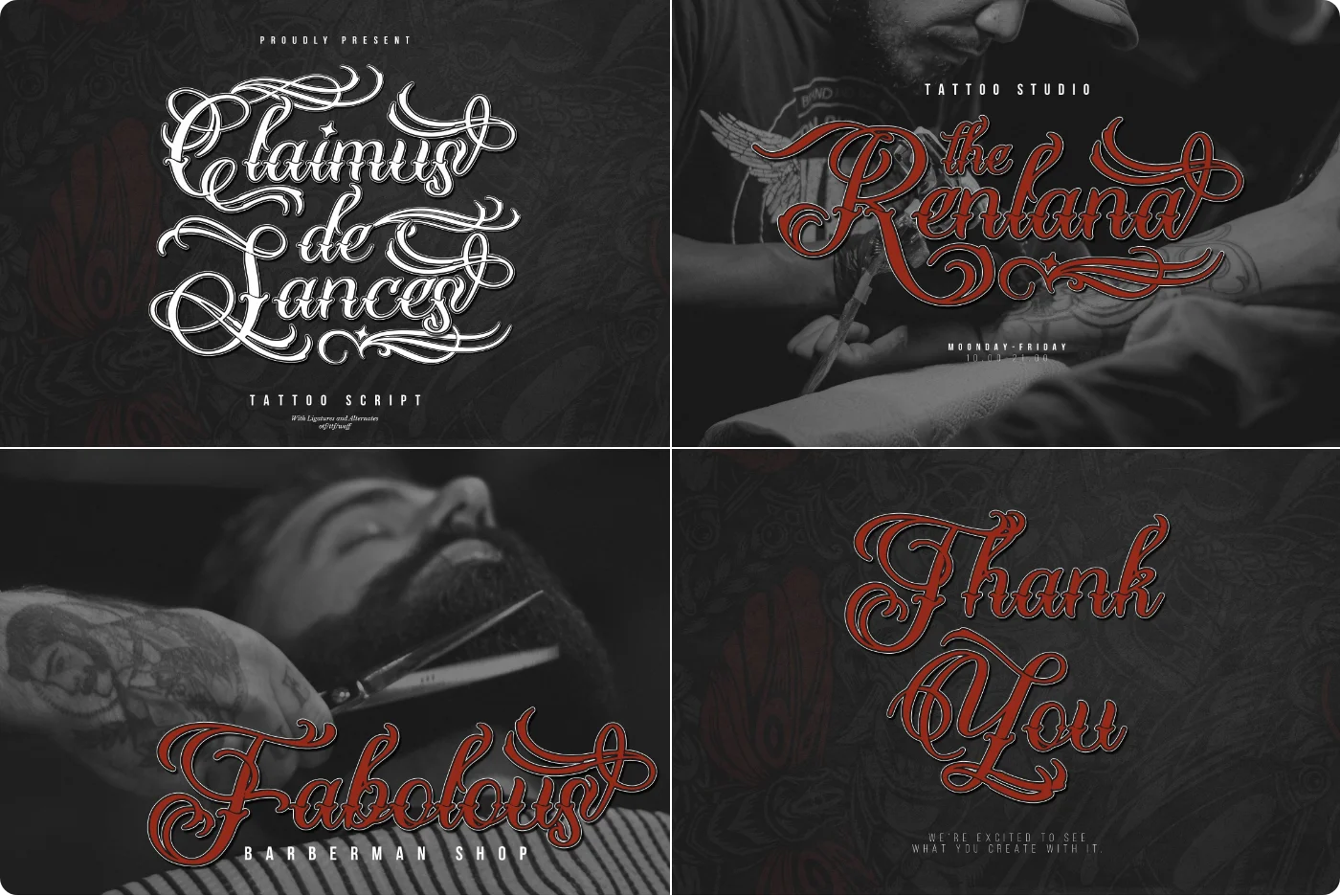
Claimus De Sances is an elegant tattoo script with classic flair—flowing cursive that adds a personal touch to names, quotes, and meaningful words.
- Style/mood: refined, classic tattoo script with smooth, sophisticated flow.
- Ideal for: name tattoos, signatures, quotes, invitations, logos/branding, apparel, social graphics.
- Glyph set: basic Latin A–Z, a–z, numerals, and punctuation.
- OpenType features: standard ligatures and stylistic alternates (access in OpenType-aware apps; in Cricut/Silhouette, use Character Map/Glyphs panel to insert alternates).
2. Lentamy Script Font
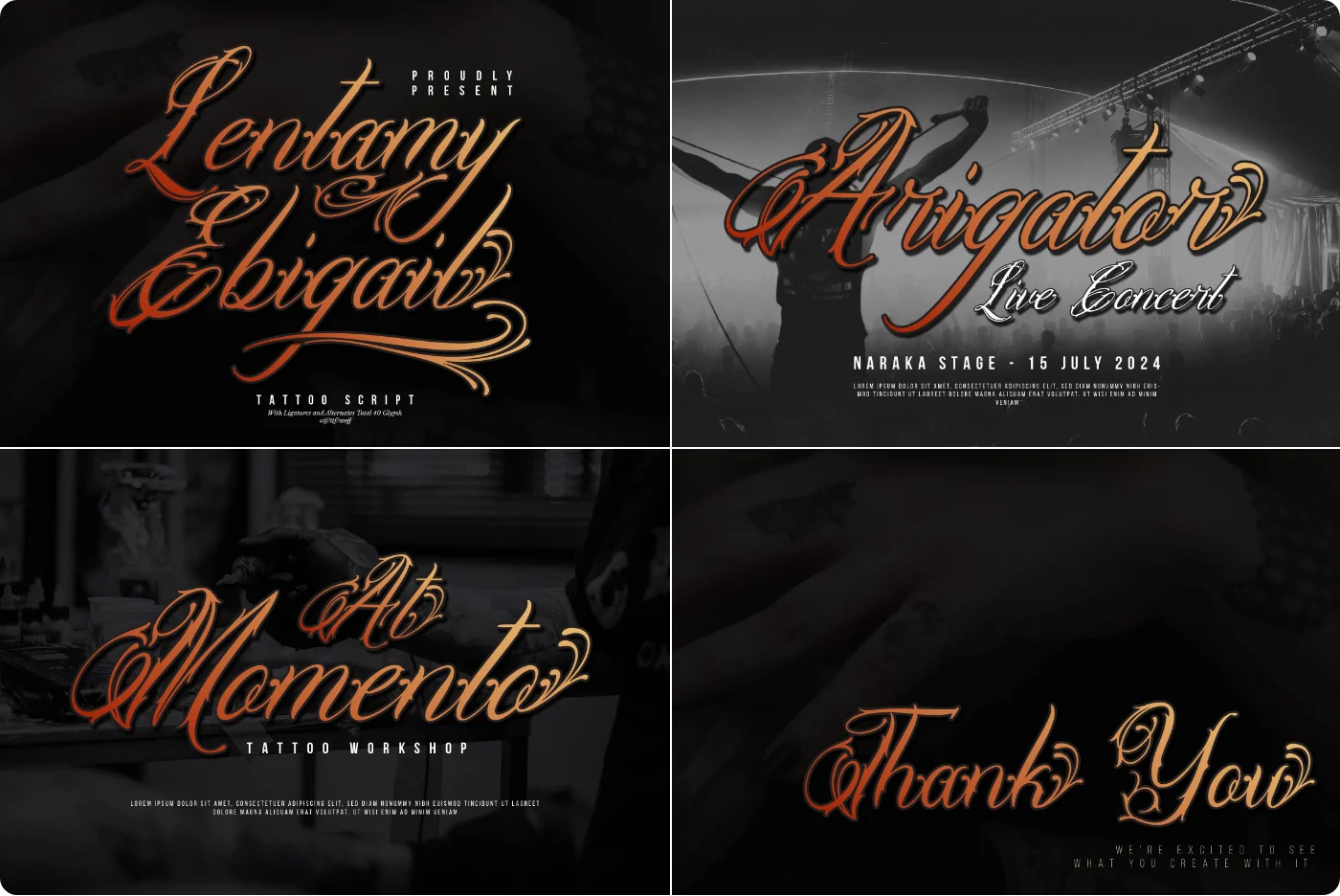
Bring your tattoo ideas to life with a flowing, elegant script designed for clear, expressive lettering. Lentamy Ebigail delivers smooth curves that look ink-ready.
- Style/mood: refined, hand-lettered script with fluid strokes; ideal for tattoo-style aesthetics.
- Best for: name tattoos, quotes, dates, custom lettering, badges/logotypes, invitations, and mockups.
- Color-font note: not a color/SVG font; cut-friendly single-color glyphs for plotters and vinyl cutters.
- Glyphs & features: A–Z, a–z, numerals, basic punctuation; standard ligatures and stylistic alternates for natural letter flow; kerning included.
3. Bionley Calligraphic Script Font
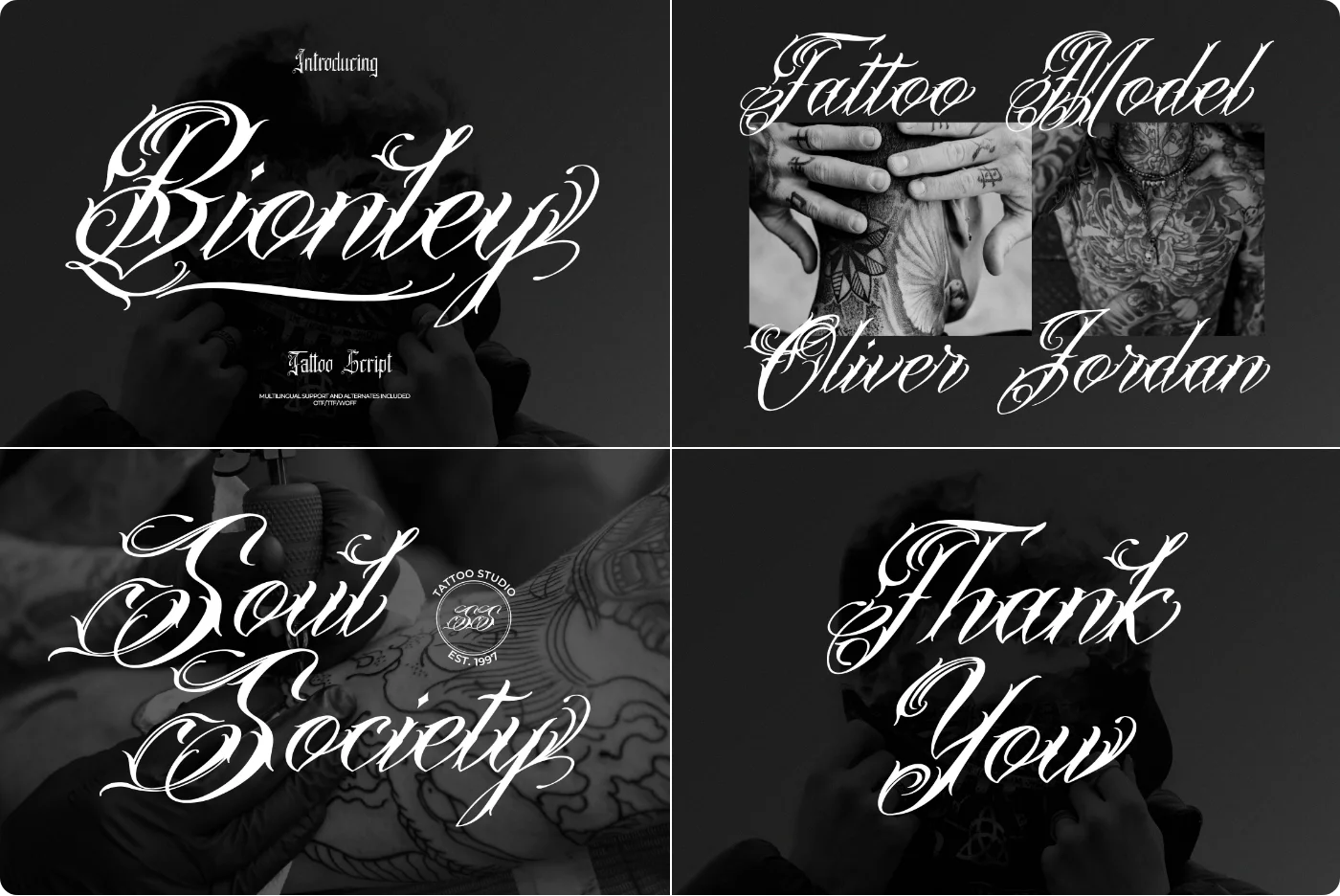
Bionley is a flowing tattoo‑script that brings elegant, hand‑inked character to names, quotes, and invitations. Smooth curves make every word look intentional and unique.
- Style/mood: elegant, flowing tattoo script with smooth, connected strokes for an artistic, refined look.
- Ideal for: tattoos, invitations, logos/branding, signatures, quotes, and personalized gifts.
- Glyph set: standard Latin A–Z, a–z, numerals, and punctuation.
- OpenType features: standard ligatures and stylistic alternates; PUA‑encoded for easy access in cutting/crafting software.
4. Nefaryth Tattoo Script Font
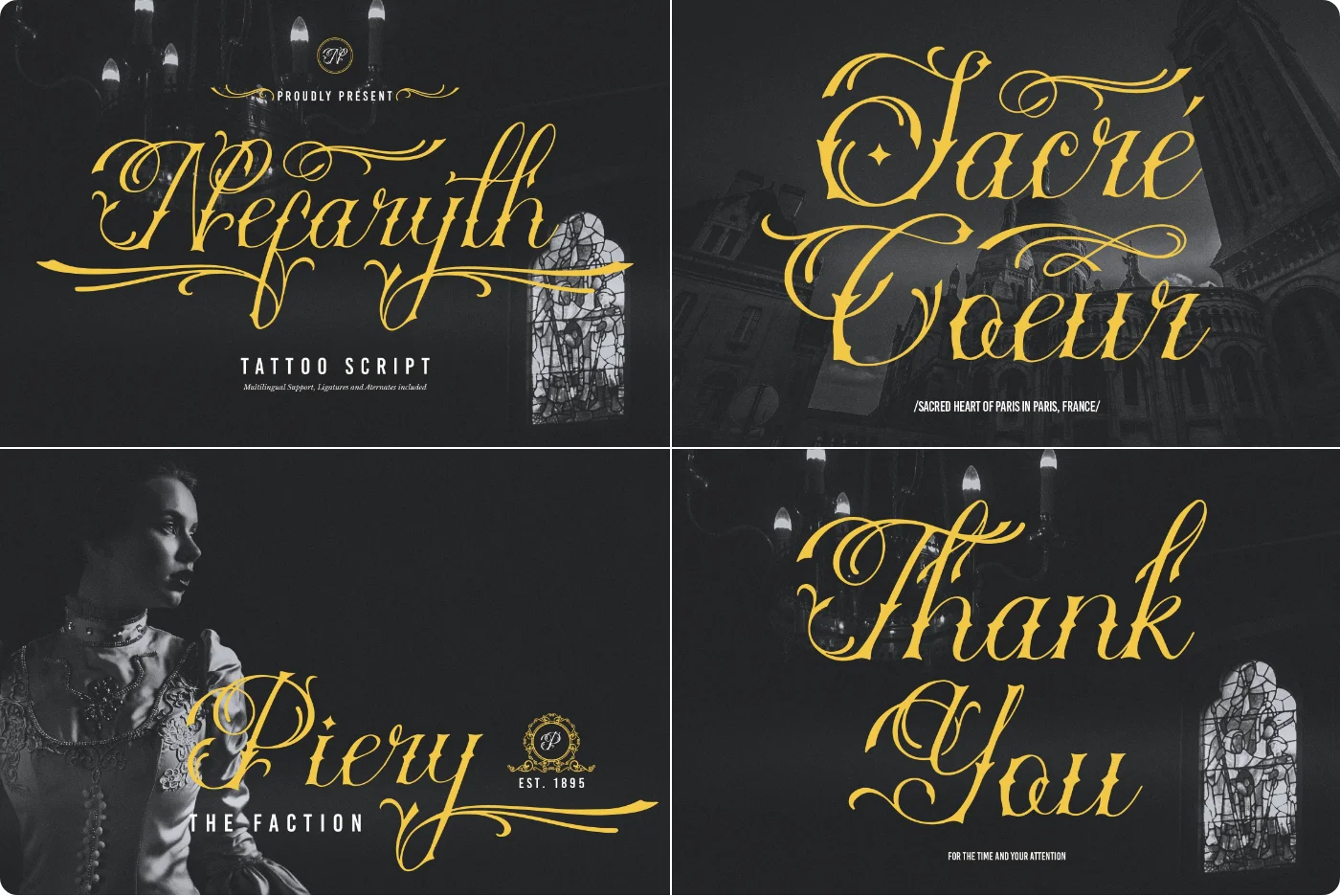
Nefaryth is a bold yet refined tattoo script—fluid curves with an edgy bite for standout, statement lettering.
- Style/mood: elegant, flowing script with sharp flourishes; bold, rebellious tattoo vibe.
- Best for: tattoo lettering, logos/signatures, apparel, posters, packaging, and social media headers.
- Glyph set: basic Latin A–Z and a–z, numerals, and common punctuation/symbols.
- OpenType features: standard ligatures, contextual connections, and stylistic alternates/swashes (accessible in OpenType-aware apps/Glyphs panel).
- Cutting tip: for clean script joins in Cricut/Silhouette, set spacing, then Weld/Attach or Convert to Paths before cutting.
5. Yellow Molly Handwritten Script Font
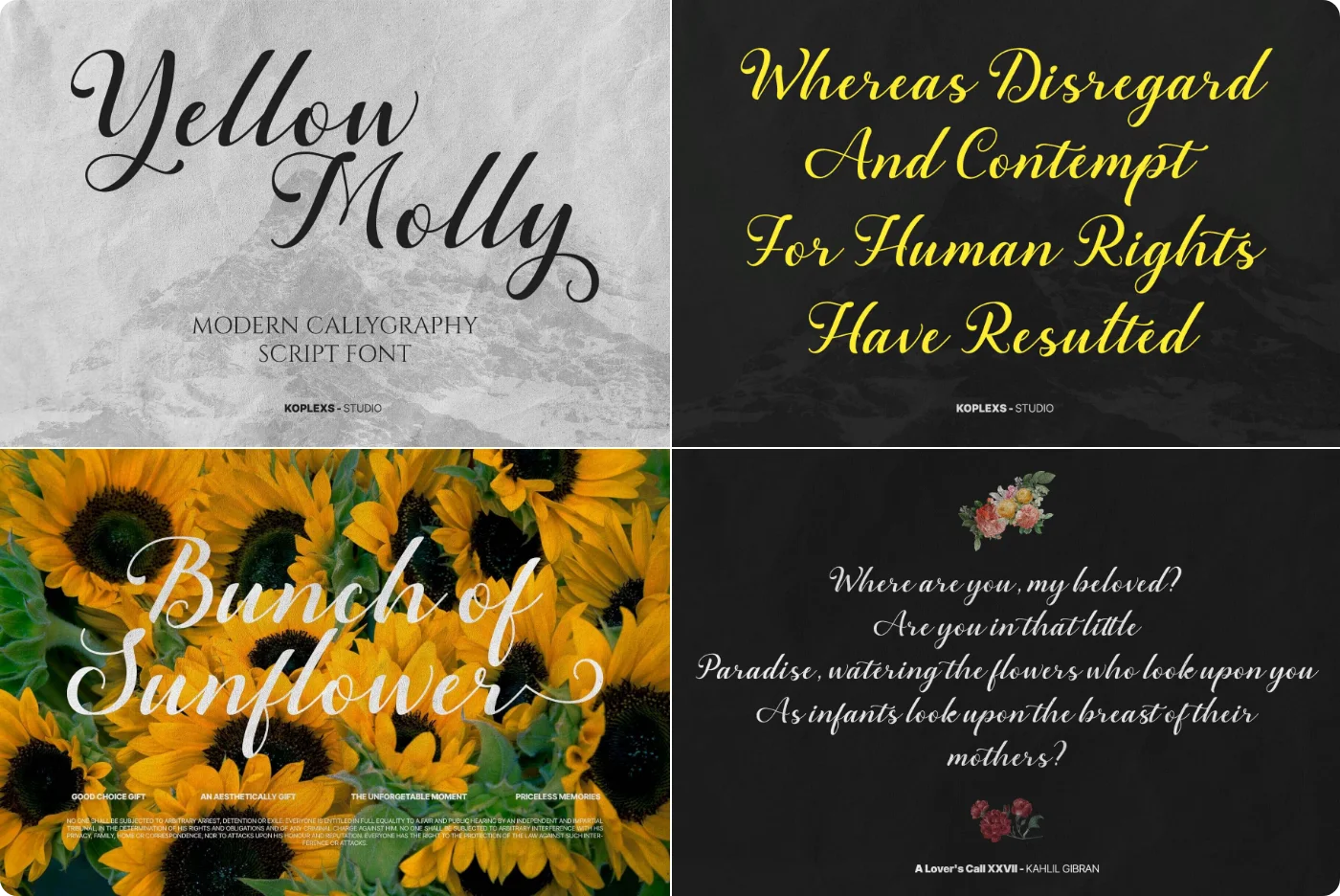
Yellow Molly is a light, elegant handwritten script that brings a refined, luxurious touch to your designs. Perfect for projects that need a soft, modern calligraphy feel.
- Style/mood: airy, delicate handwritten script with a modern, upscale vibe.
- Ideal for: logos and branding, wedding invitations, stationery, packaging, social media graphics, quotes, and photo overlays.
- Glyph set: standard Latin alphabet (A–Z, a–z), numerals 0–9, and common punctuation/symbols.
- Glyph set: A–Z, a–z, 0–9, and basic punctuation/symbols for standard English design needs.
- OpenType features: standard ligatures and stylistic alternates for smoother connections and variation (access via OpenType-enabled apps/Glyphs panel).